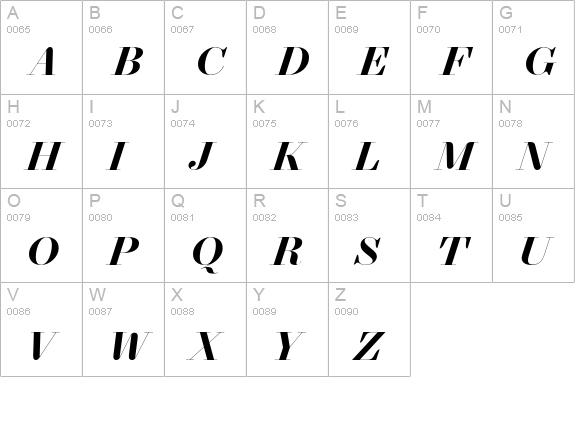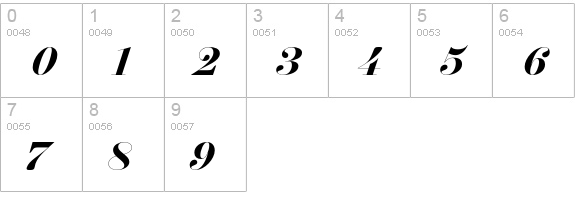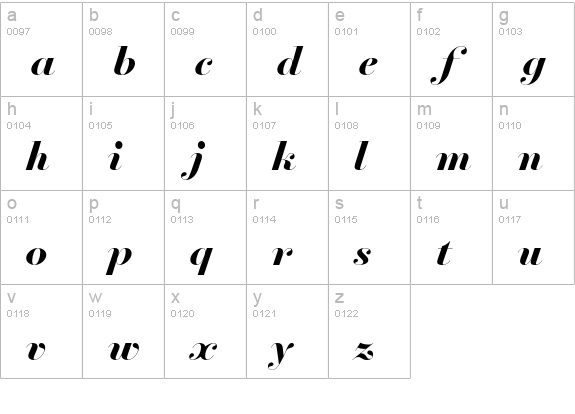
NewParis KingSize Bold Italic is a strong, high-contrast, italic variant in the NewParis typeface family \xE2\x80\x94 well suited to headlines, attention-grabbing titles, and strong calls-to-action.